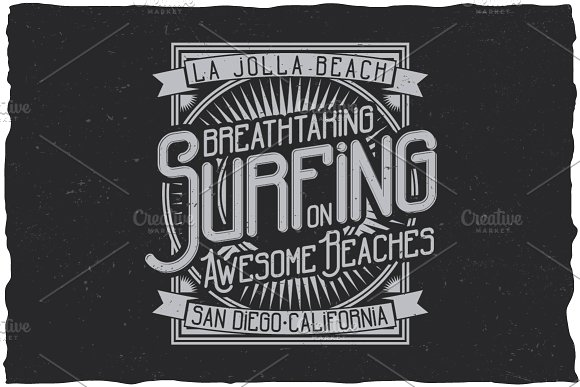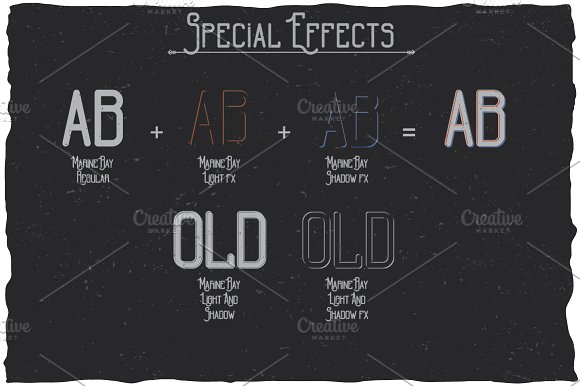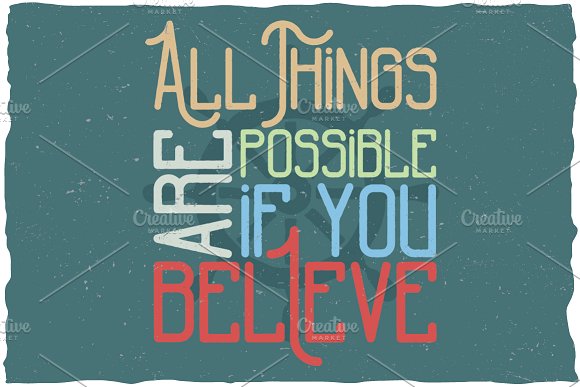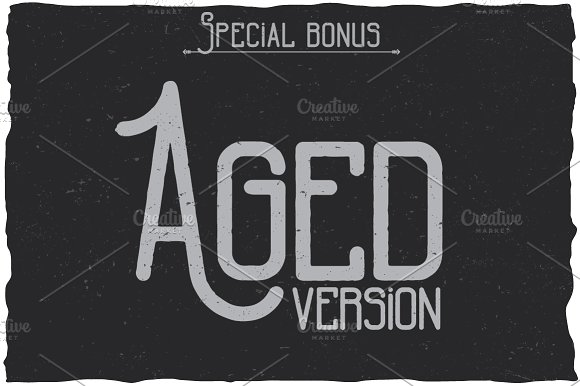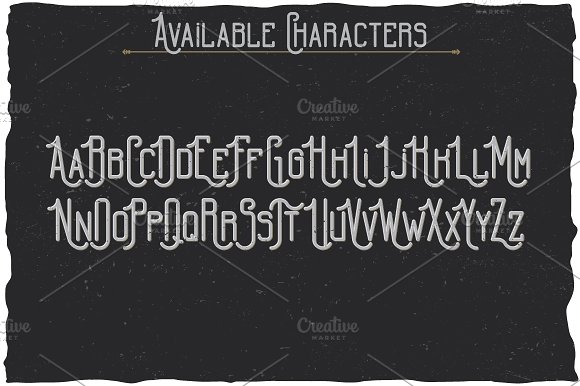
Marine Bay Vintage Label Typeface
Here is a classic look label typeface named “MarineBay”. It’s made in vintage label style. Font is perfect for any labels design.